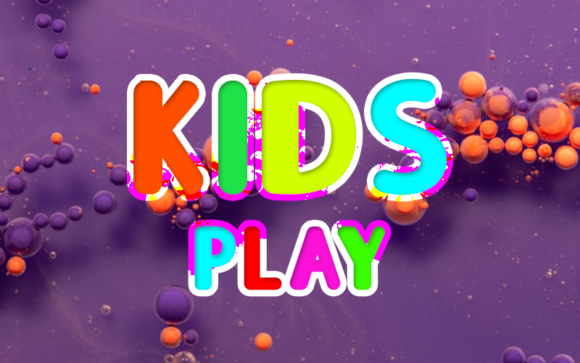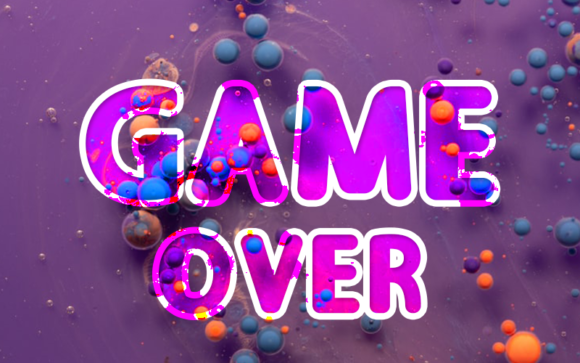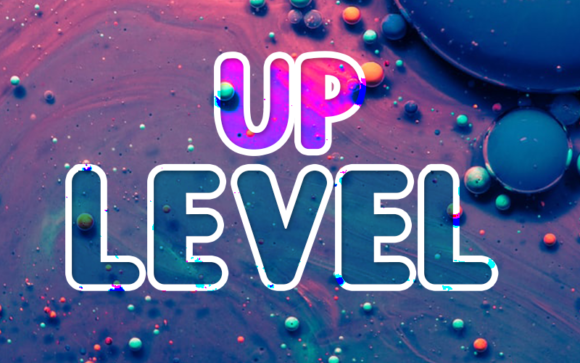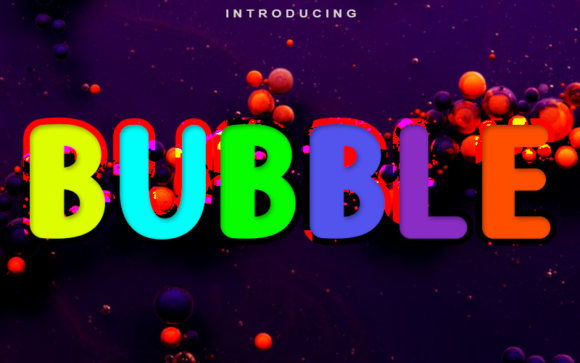
Bubble Font: Adding a Touch of Whimsy to Your Designs
Bubble font, a playful and eye-catching display style, has become a favorite among designers and crafters. Its childlike charm and quirky appeal make it perfect for a wide range of creative projects, from kids’ materials to school projects, and even adult designs that require a touch of fun and personality.
The Allure of Bubble Font
Bubble font embodies fun, quirkiness, and authenticity, making it an excellent choice for designers looking to add a dash of whimsy to their work. This enchanting font style has the power to turn any creative idea into a true standout, setting it apart from more traditional and formal typography.
Characteristics of Bubble Font
Bubble font is characterized by its:
- Rounded and inflated appearance: The letters are designed to resemble bubbles, with a rounded and puffy appearance that gives them a lighthearted and carefree feel.
- Childlike playfulness: The font’s playful and innocent nature makes it perfect for designs aimed at children or projects that require a touch of nostalgia.
- High legibility: Despite its playful nature, bubble font remains highly legible, making it suitable for use in a variety of contexts, from titles and headings to body text.
Uses of Bubble Font
Bubble font is incredibly versatile, and its uses are endless. Here are a few ideas to get you started:
- Kids’ projects: Use bubble font to create fun and engaging materials for kids, such as posters, flyers, and worksheets.
- School projects: Add a touch of personality to school projects, such as presentations, reports, and essays, with bubble font.
- Party decorations: Create eye-catching party decorations, such as banners, garlands, and invitations, using bubble font.
- Branding and packaging: Use bubble font to add a touch of whimsy to branding and packaging designs, making them more approachable and fun.
Tips for Using Bubble Font
To get the most out of bubble font, follow these tips:
- Use it sparingly: Bubble font is best used in moderation, as it can be overwhelming if overused. Use it for headings, titles, or key phrases to add emphasis and visual interest.
- Pair it with complementary fonts: Combine bubble font with complementary fonts to create a visually appealing contrast. For example, pair it with a clean sans-serif font for body text.
- Experiment with colors and textures: Have fun with colors and textures to enhance the playful nature of bubble font. Try using bright colors, gradients, or textures to add depth and visual interest.
Bubble font is a delightful and versatile font style that can add a touch of whimsy and fun to any design project. Its childlike playfulness, high legibility, and quirky appeal make it perfect for a wide range of creative projects, from kids’ materials to adult designs. With its endless uses and possibilities, bubble font is sure to become a favorite among designers and crafters.
Get Creative with Bubble Font!
So why not give bubble font a try? With its enchanting display style and playful charm, it’s sure to bring a smile to your face and inspire your creativity. Get creative with bubble font today and turn your ideas into standout designs that are sure to delight!